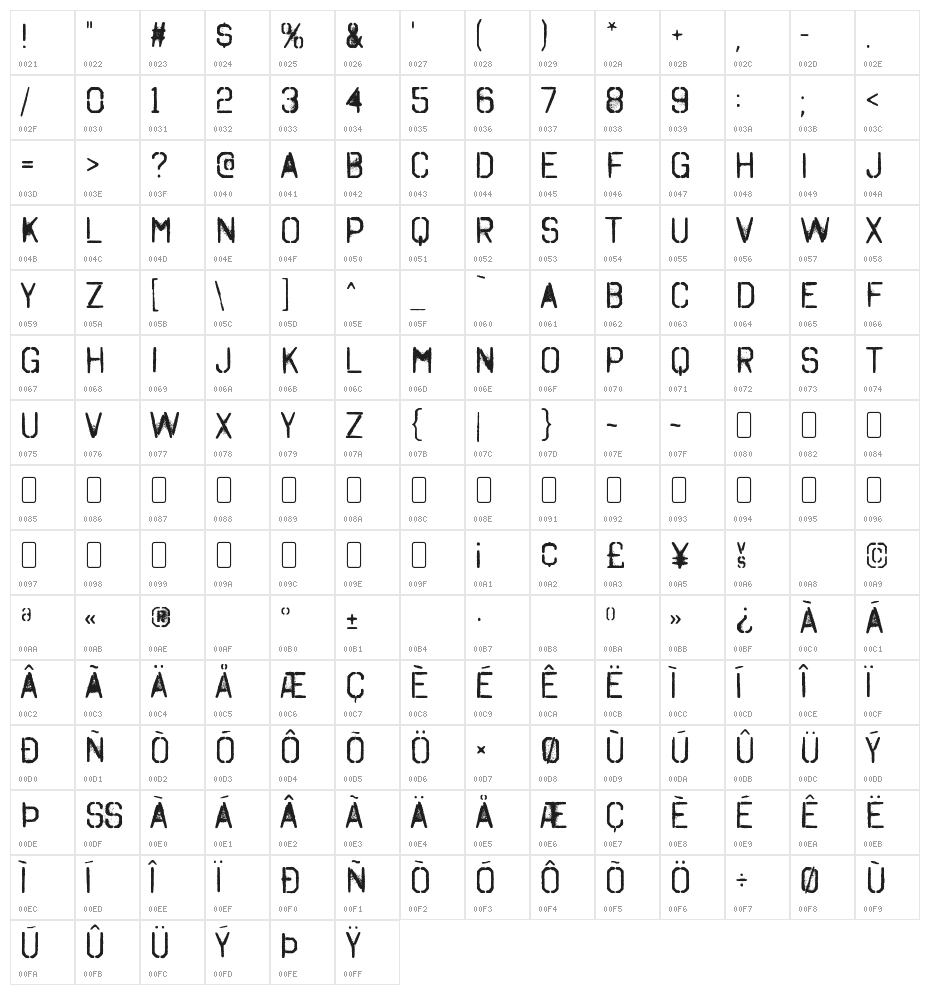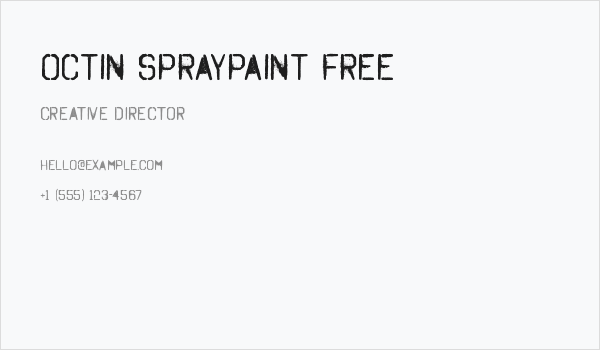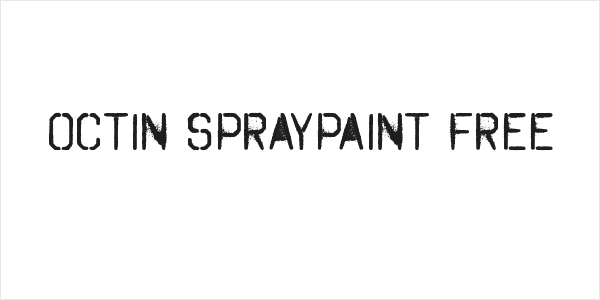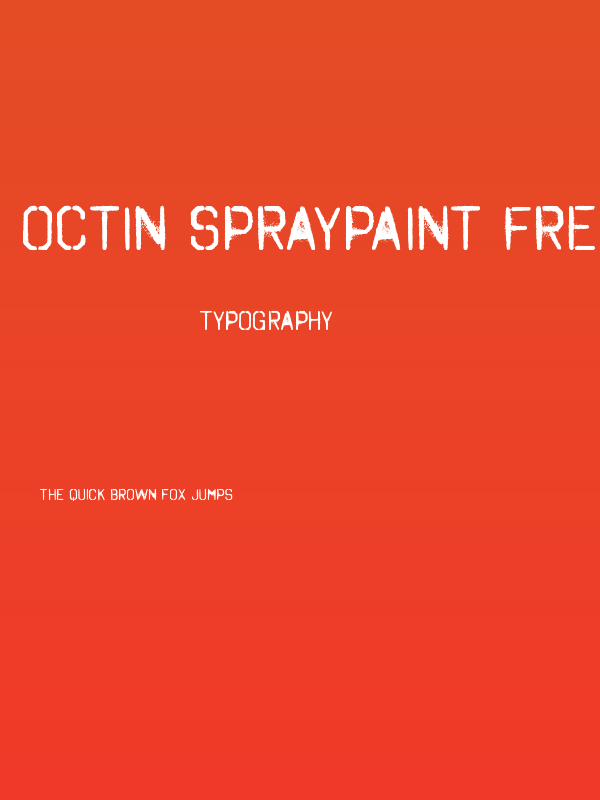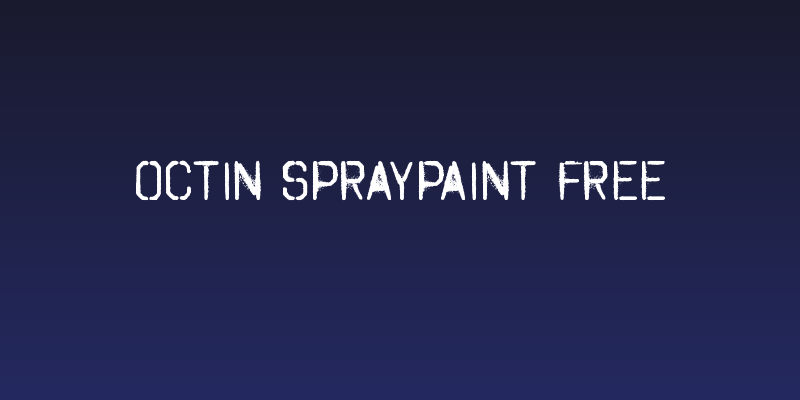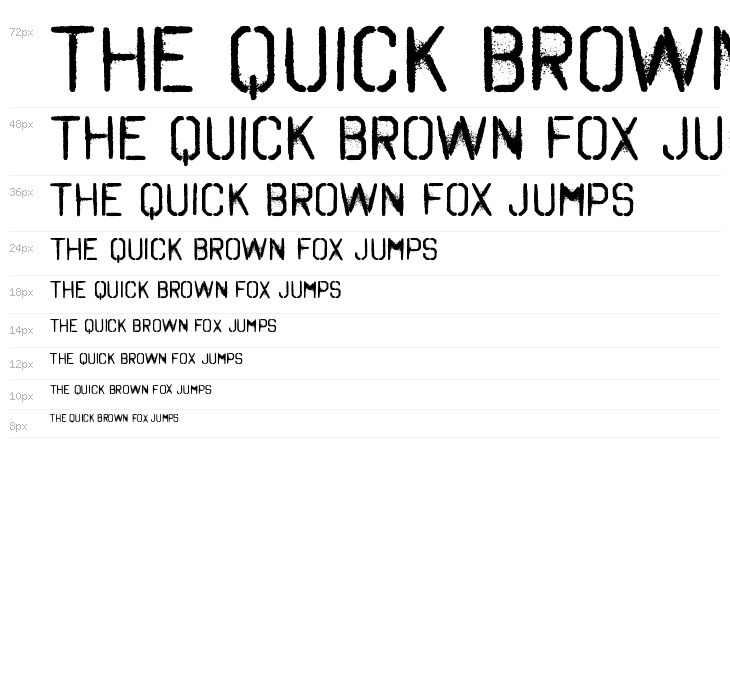
Octin Spraypaint Free Font
| Stil general | Urban, Gritty, Industrial |
| Proiecte propuse | Ideal for street art-inspired designs, urban-themed posters, edgy branding, and event flyers. |